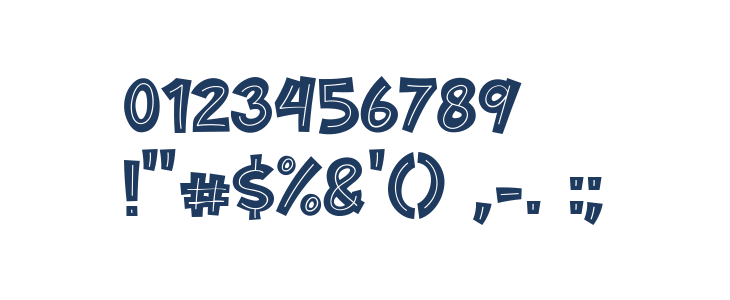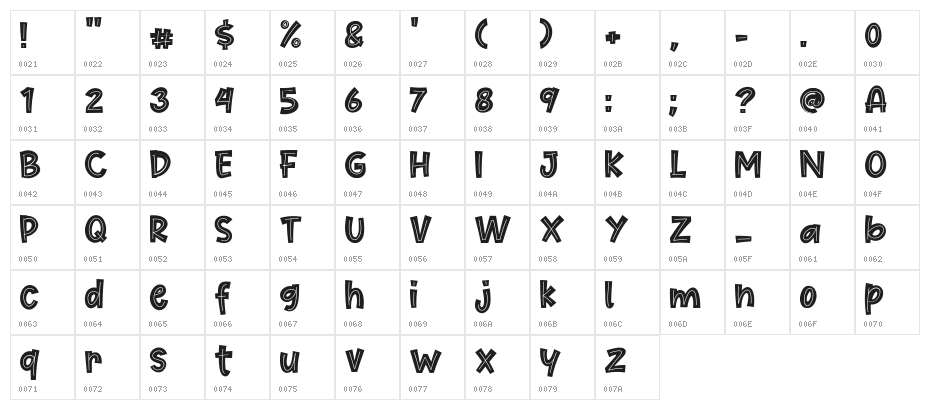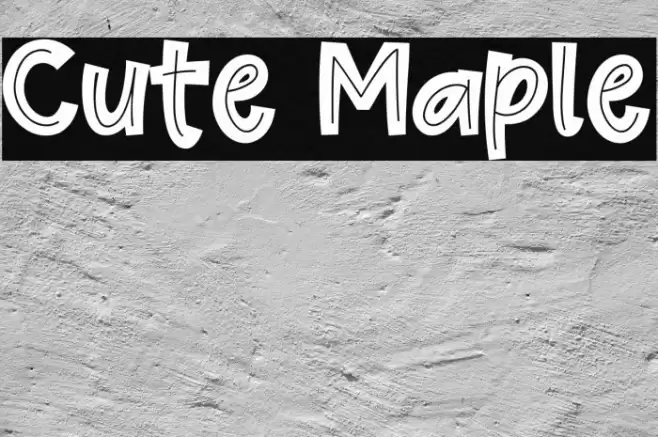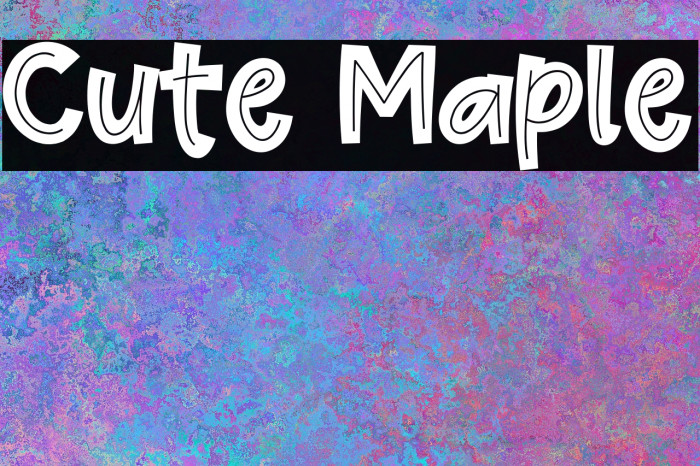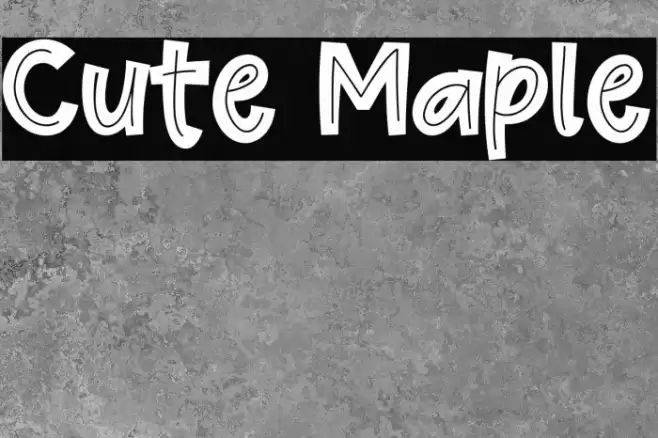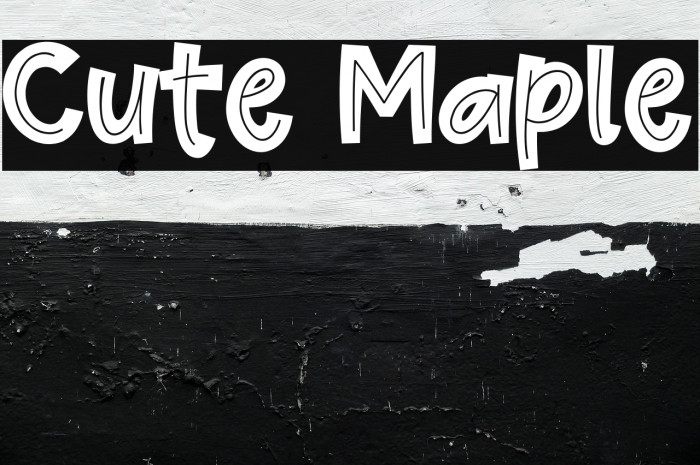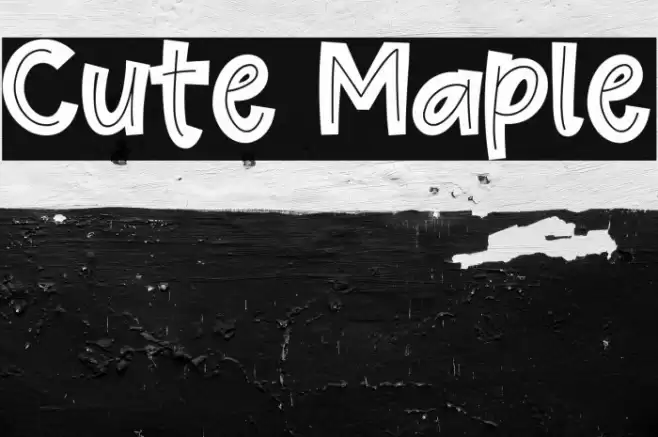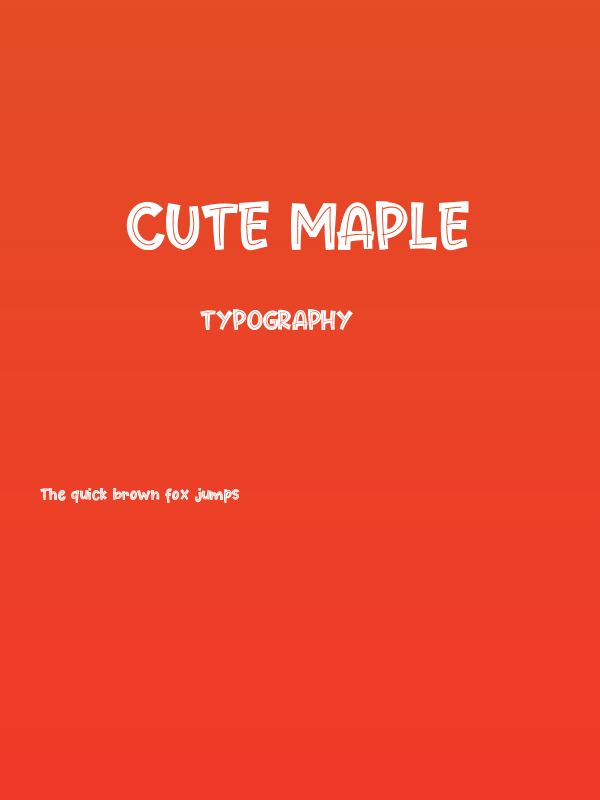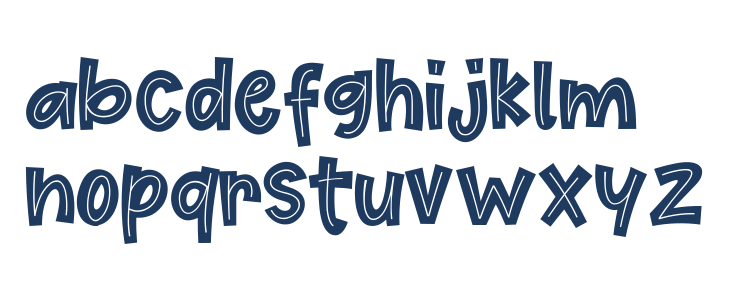
Cute Maple Font
Cute Maple Description
This playful and bold font features a hand-drawn style with thick, uneven strokes that give it a lively and energetic appearance. The letters are slightly tilted and have a whimsical, cartoon-like quality, making them perfect for projects that require a fun and informal touch. The uppercase and lowercase letters maintain a consistent style, with rounded edges and a slightly exaggerated form that adds to the font's charm. Numbers and special characters are equally expressive, ensuring a cohesive look across all text elements. The font's boldness and unique character make it stand out, while its legibility ensures it remains functional for various applications.
| Overall Style | Playful, Whimsical, Energetic |
| Use Case | Headlines, Logos, Posters, Invitations |
| Proposed Projects | Ideal for children's books, comic strips, playful branding, party invitations, and any project needing a fun, informal touch. |